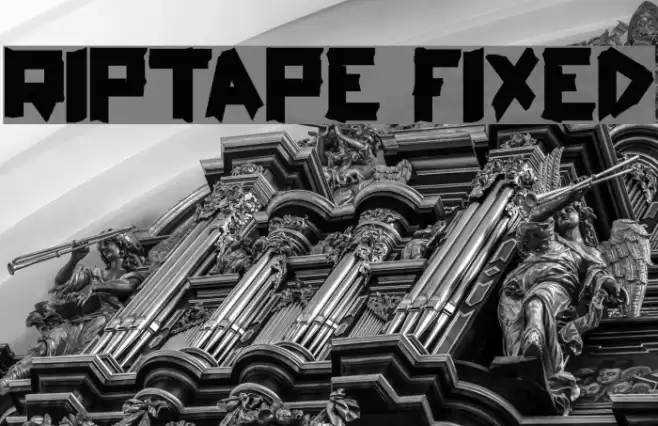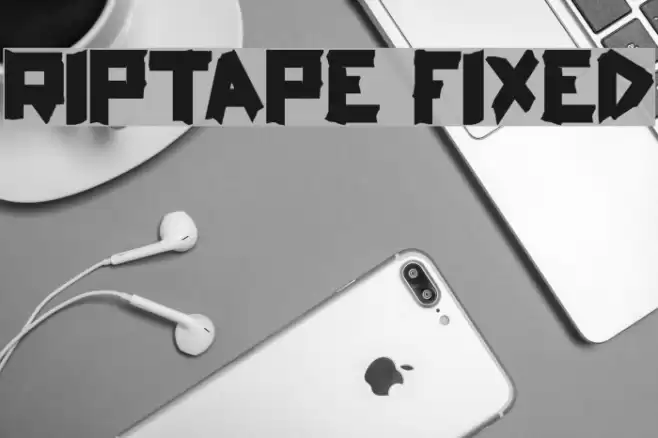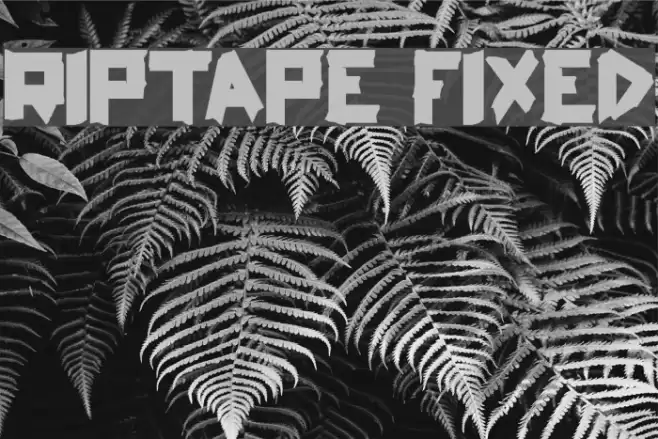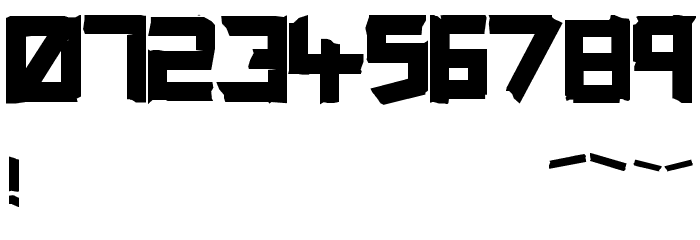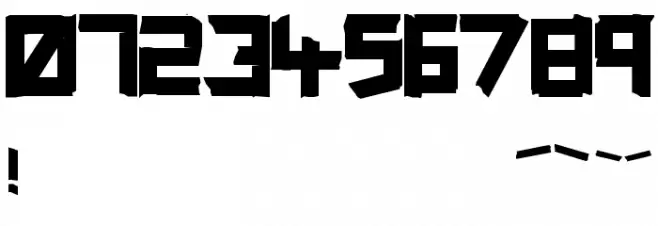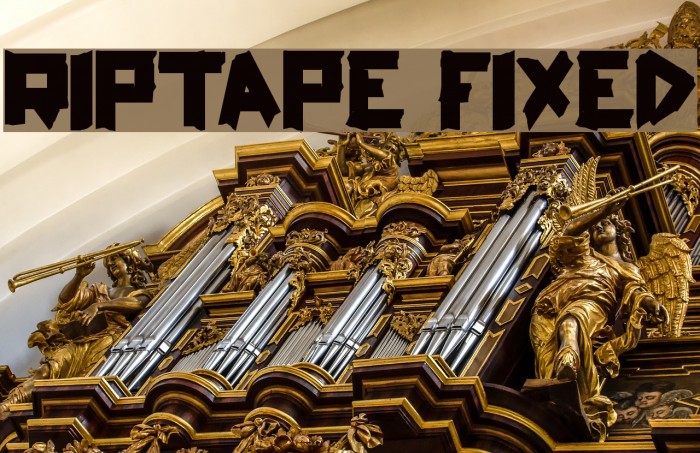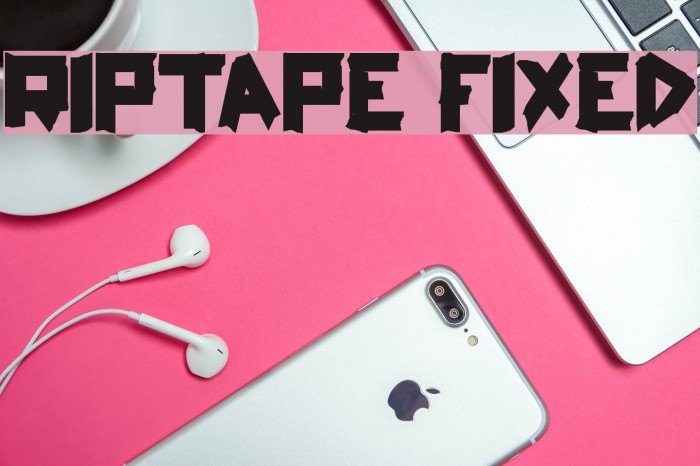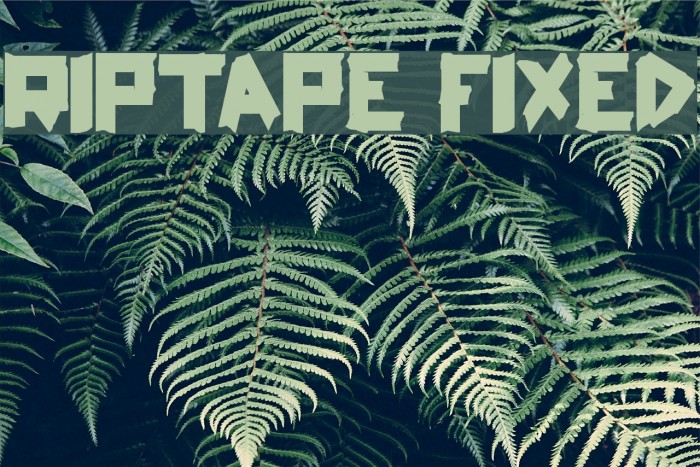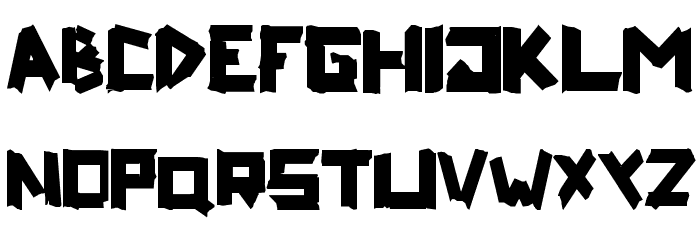
ripTAPE Fixed Font
ripTAPE Fixed Description
This font features a bold, geometric design with sharp angles and a blocky appearance. The characters are constructed with thick strokes, giving them a strong and impactful presence. The uppercase and lowercase letters maintain a consistent style, with a unique, edgy look that resembles cut-out shapes or stenciled designs. The numbers and special characters follow the same aesthetic, ensuring uniformity across all glyphs. This font is highly decorative, making it suitable for eye-catching designs.
A bold, geometric font with sharp angles and a blocky, stencil-like appearance from Uncategorized fonts.
- Proposed Projects: Ideal for urban-themed posters, album covers, streetwear branding, and graffiti-inspired artwork.
- Overall Style: Modern, Urban